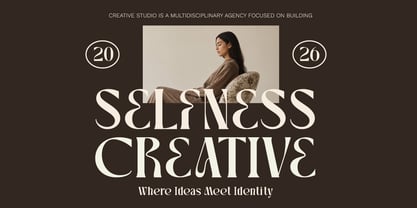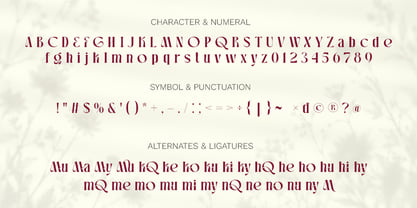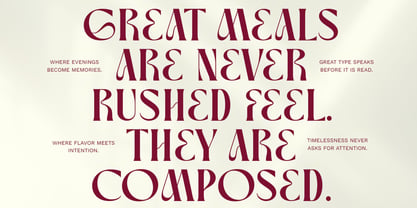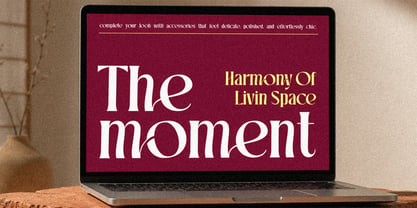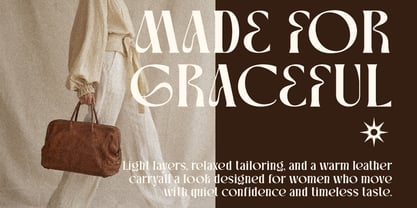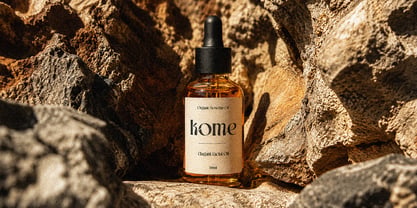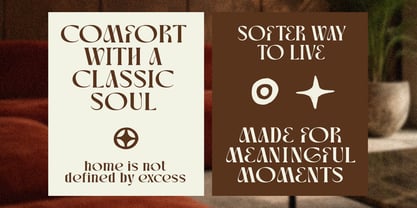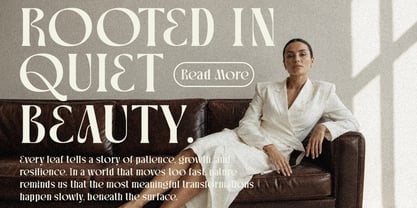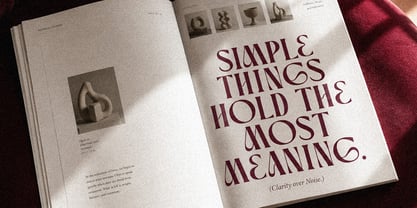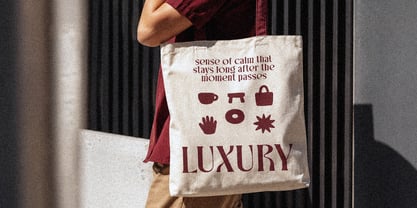
Mukqhe
Mukqhe is an elegant serif font with a luxurious, romantic, and artistic character. Each letter is designed with bold-thin contrast, smooth curves, and decorative details. This font is perfect for logos, branding, wedding invitations, product packaging, editorials, fashion, restaurant menus, and beauty brands. One of the strongest parts of Mukqhe is its alternates and ligatures. These details were made to help designers create more beautiful wordmarks, headlines, and brand compositions. The ligatures are not just decorative additions; they are part of the font’s visual identity. They help certain letter combinations feel more natural, more premium, and more custom-made.